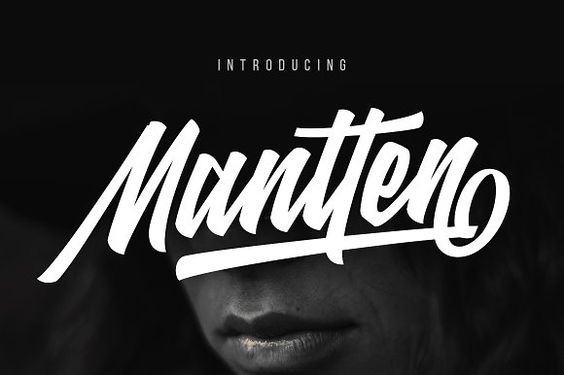
Mantten a typeface inspired by the bold signature style, we’ve created to provide ease in completing the work as a logotype typography, posters, titles, T-shirts and other creative projects, more than 290 glyph is certainly very easy you for it.